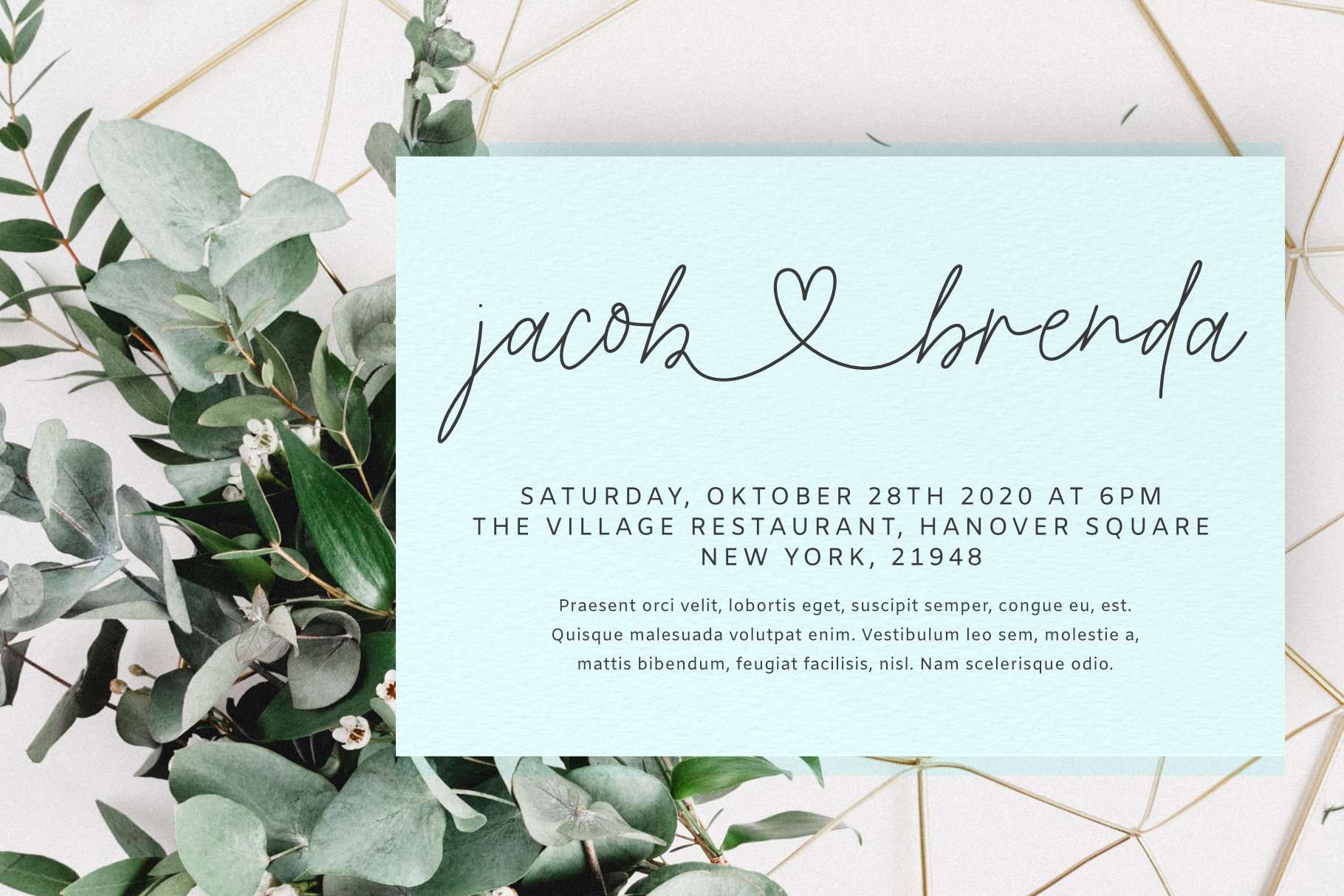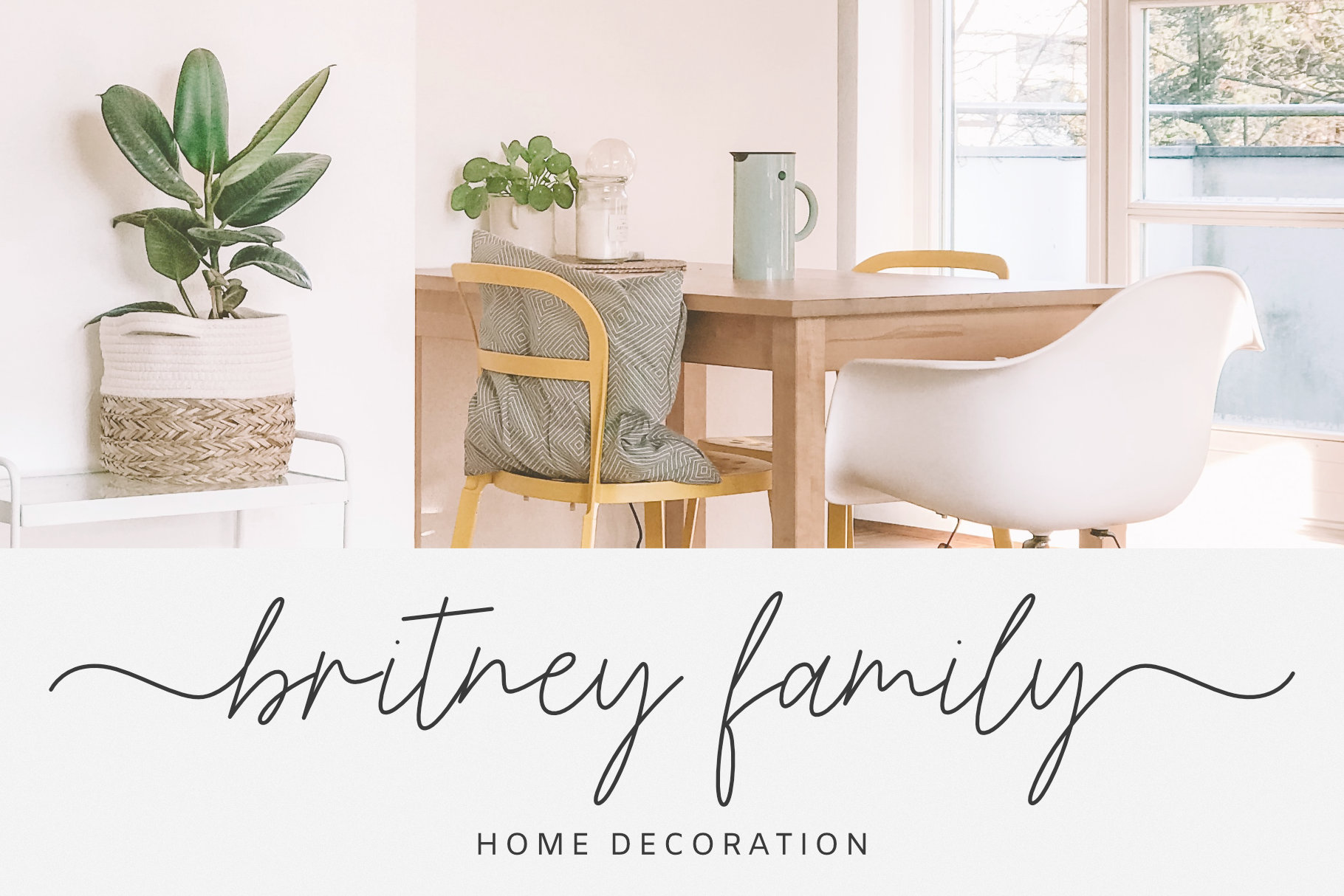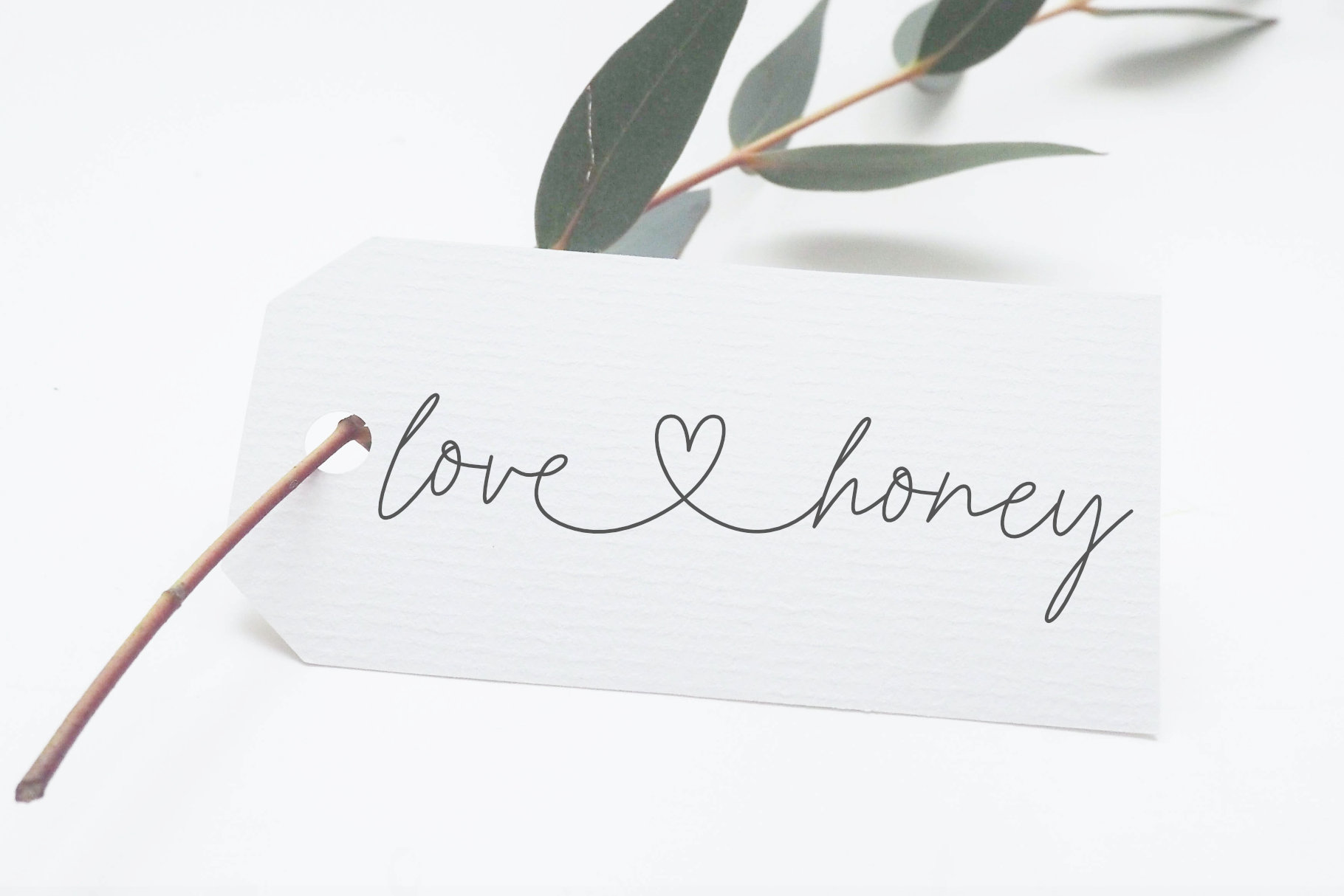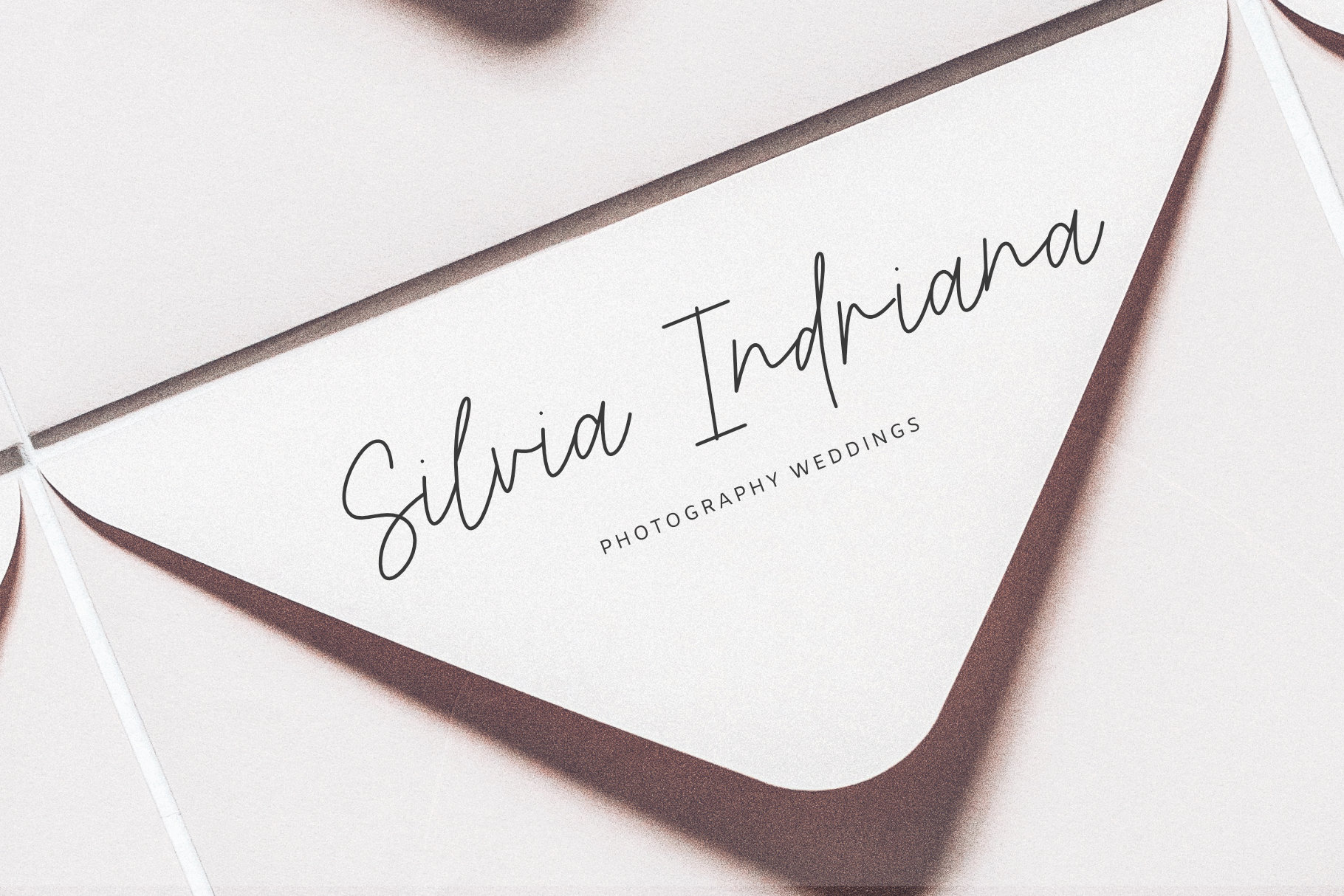
Jack & Kate Font
Jack & Kate Font is a modern calligraphy font with monoline style, feminine, and hearts glyphs. It is perfect for branding, wedding lettering, book covers, magazines, logo, marketing, cards, and more. Jack &Kate features standard characters, ligatures, and multilingual support. Also includes lowercase beginning and ending swashes; lowercase connecting heart swashes.